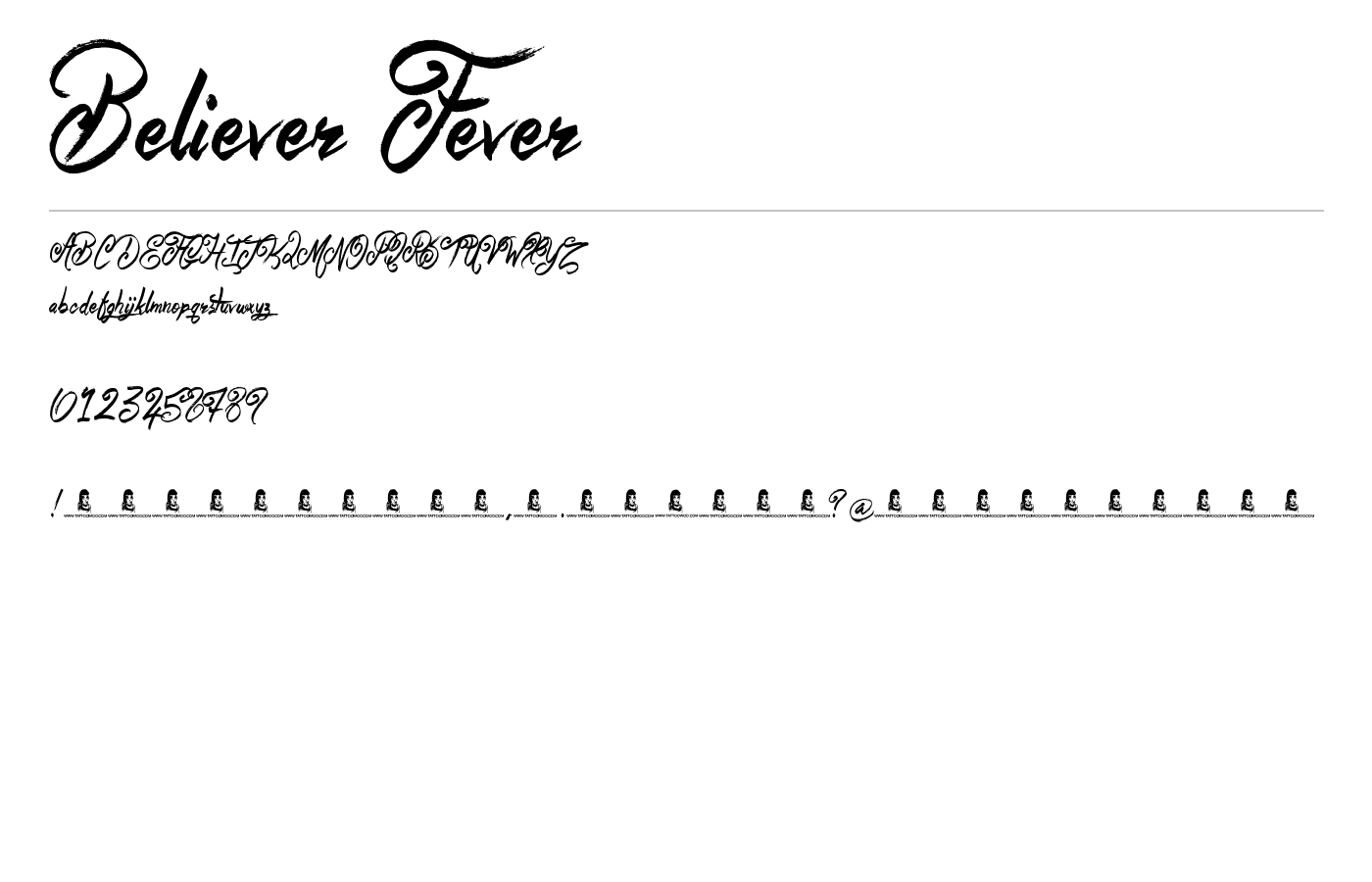
Believer Fever is a bold, expressive script font with a hand-painted feel, featuring fluid, textured strokes that bring a lively, artistic energy. Its high contrast and decorative swashes make it perfect for creative branding, packaging, and eye-catching headlines where personality and flair are essential. This font suits projects seeking a dynamic, handcrafted touch that stands out with elegance and emotion.
Believer Fever Font
About Believer Fever Font
| Font family | Believer Fever Font |
| Designer | Jonathan S. Harris |